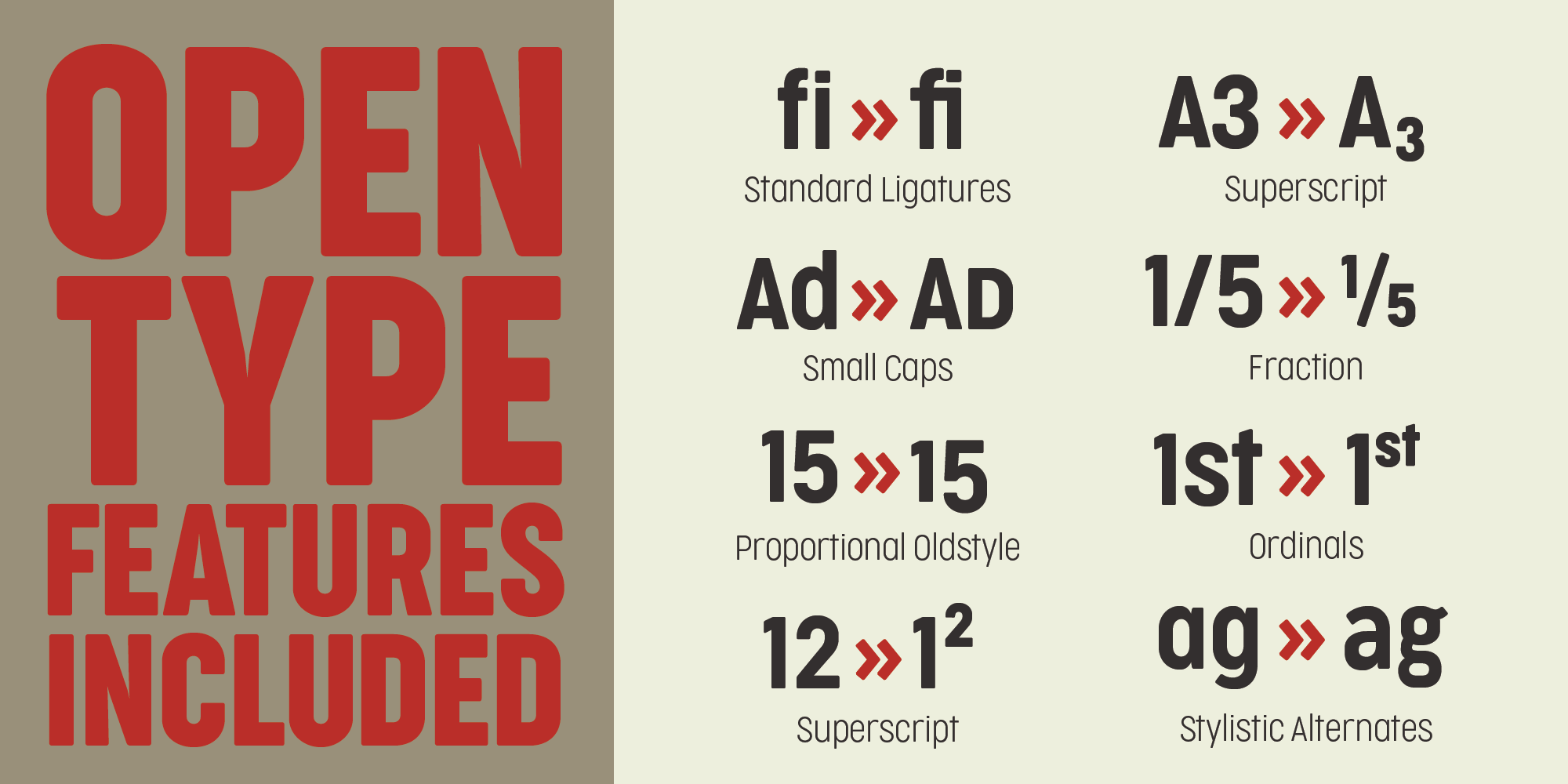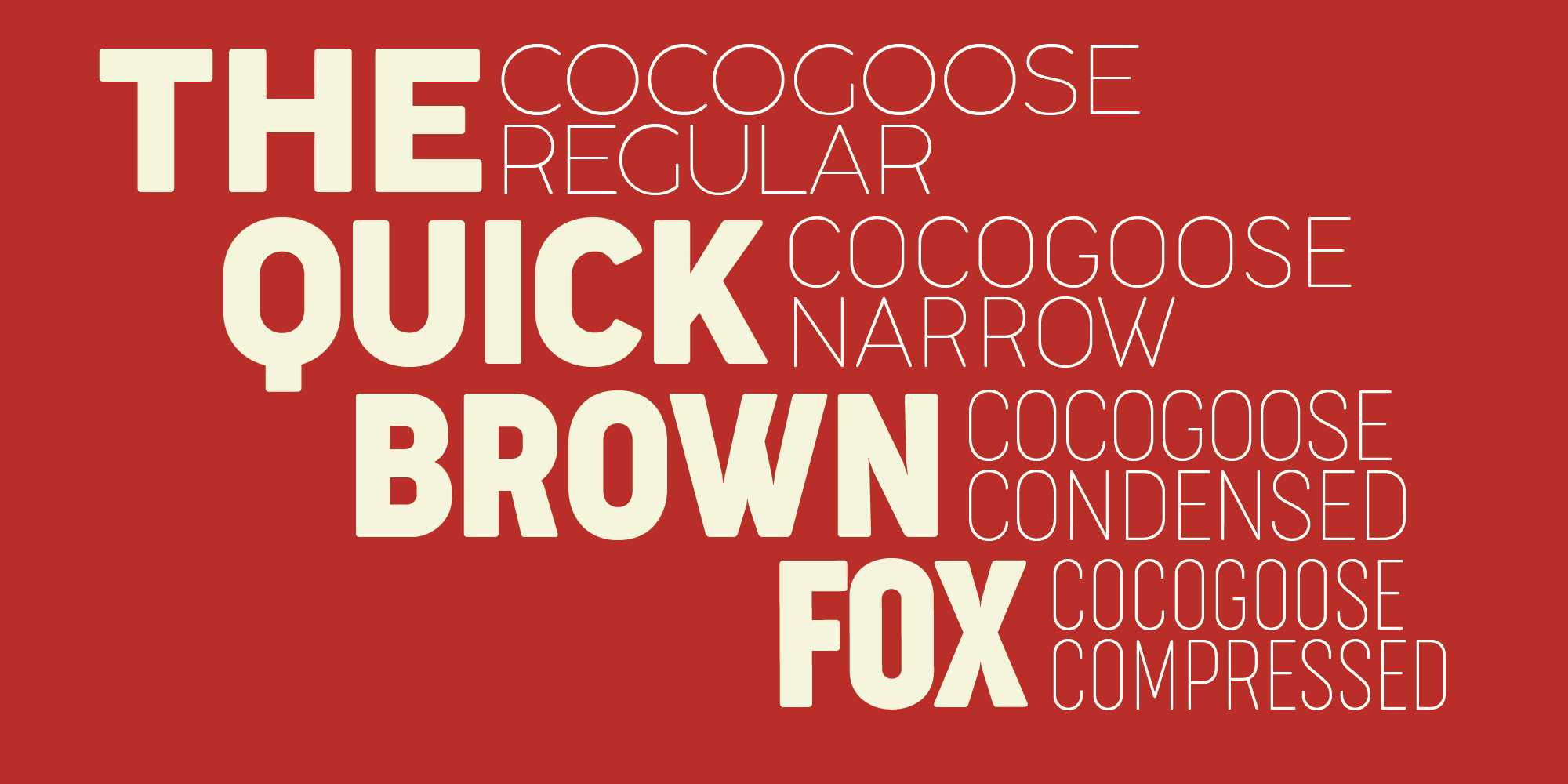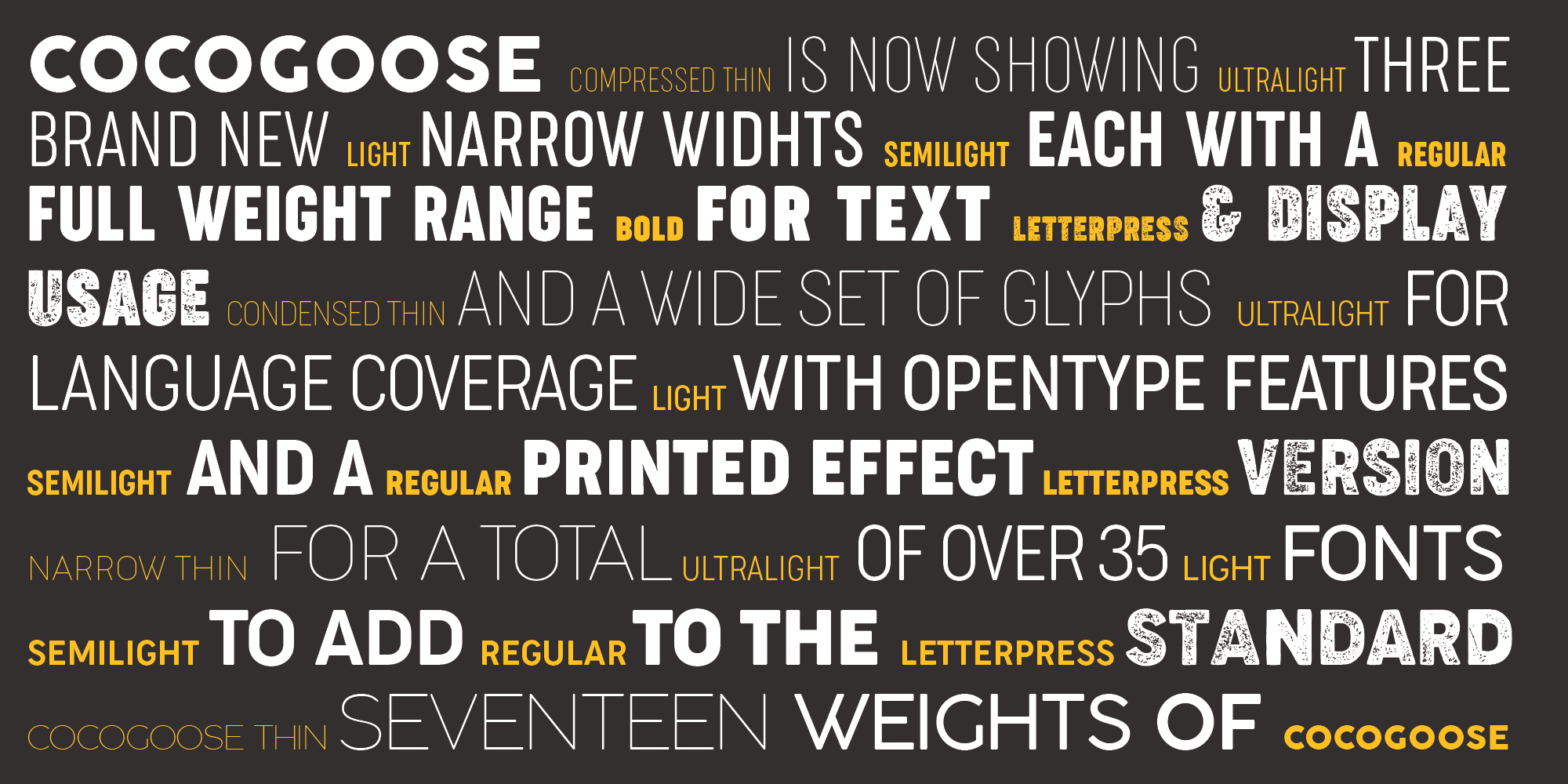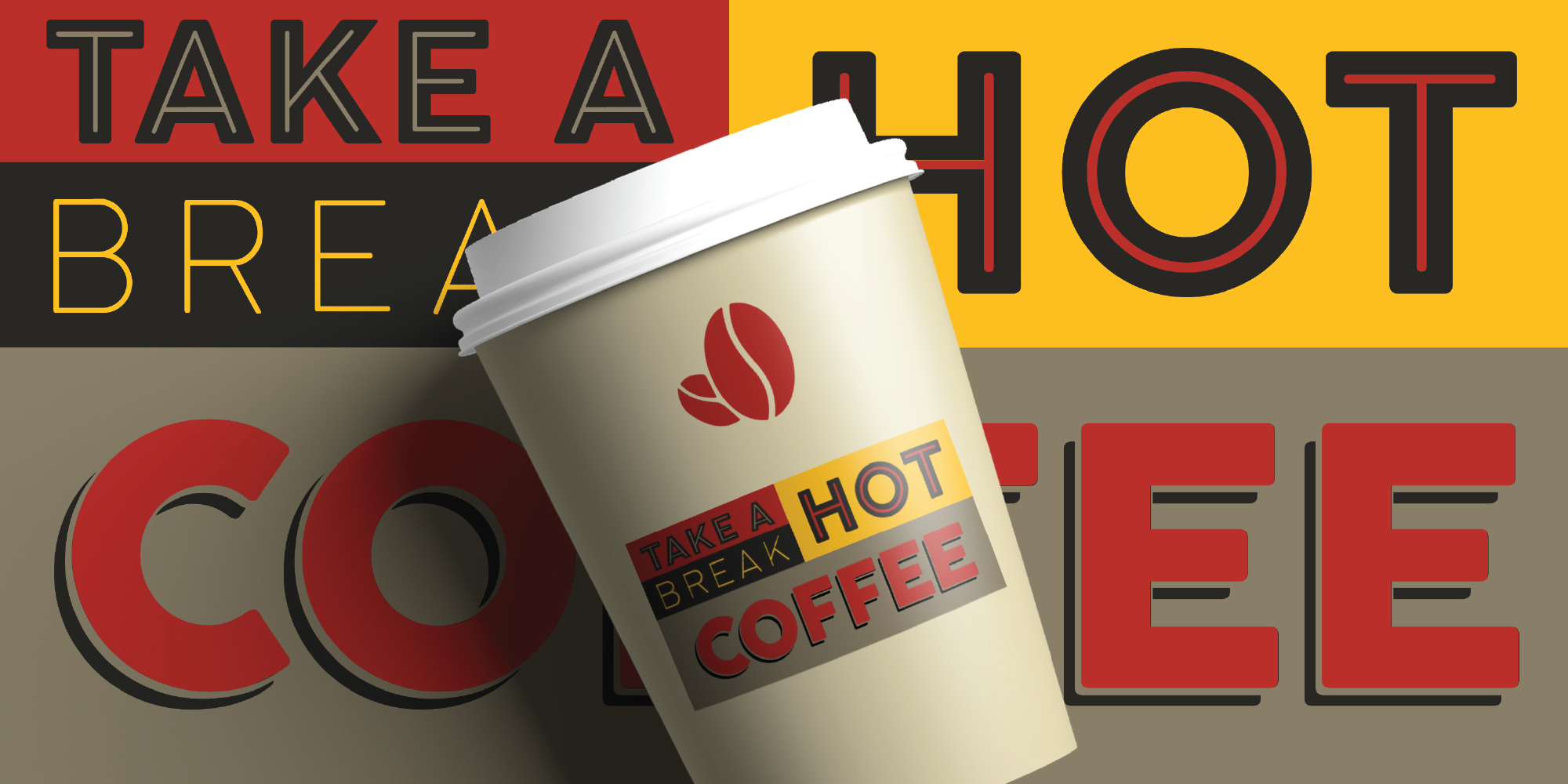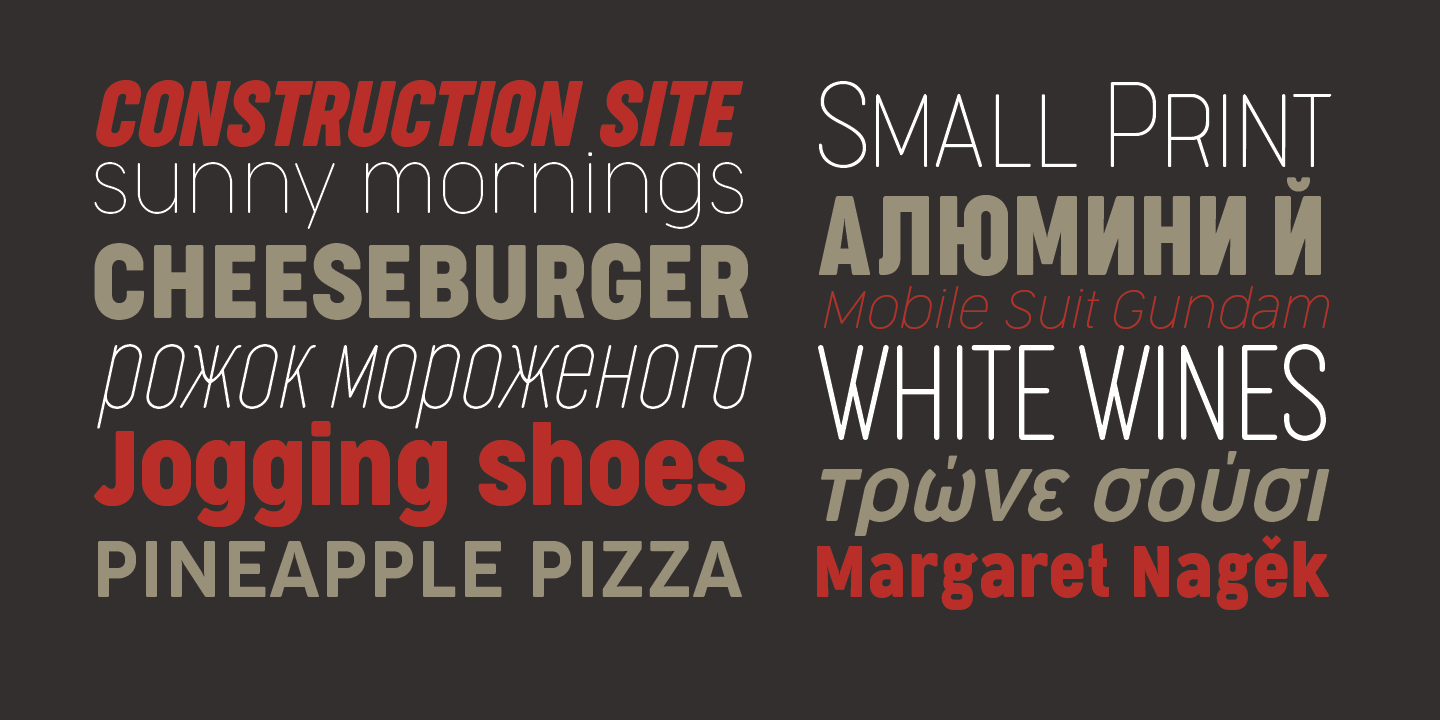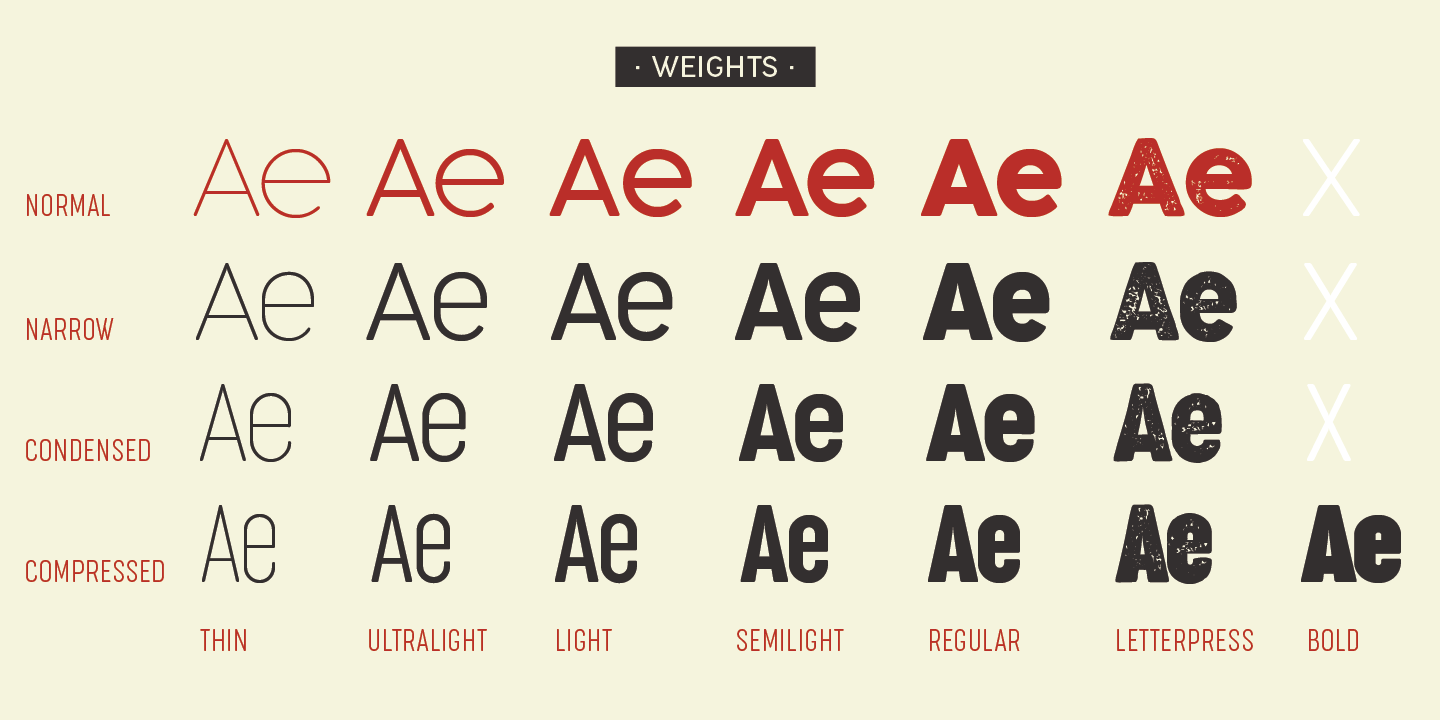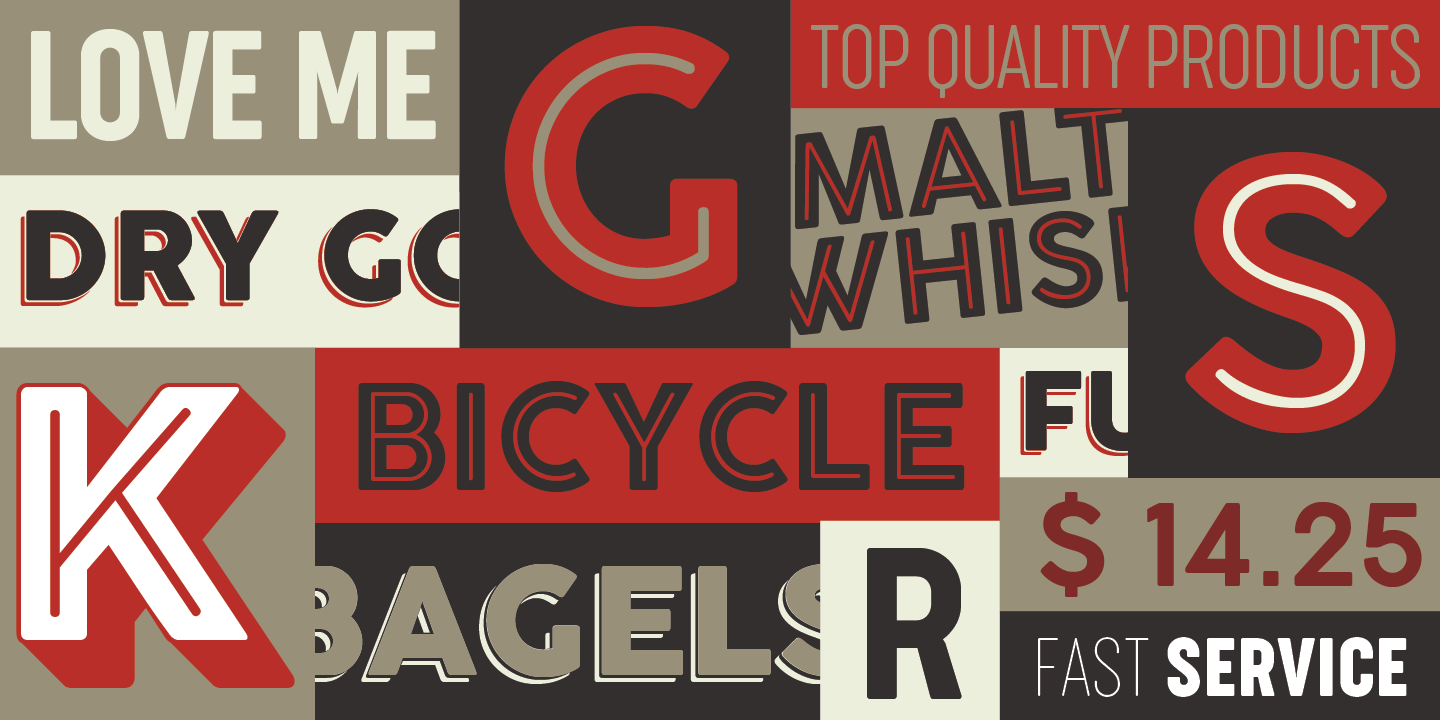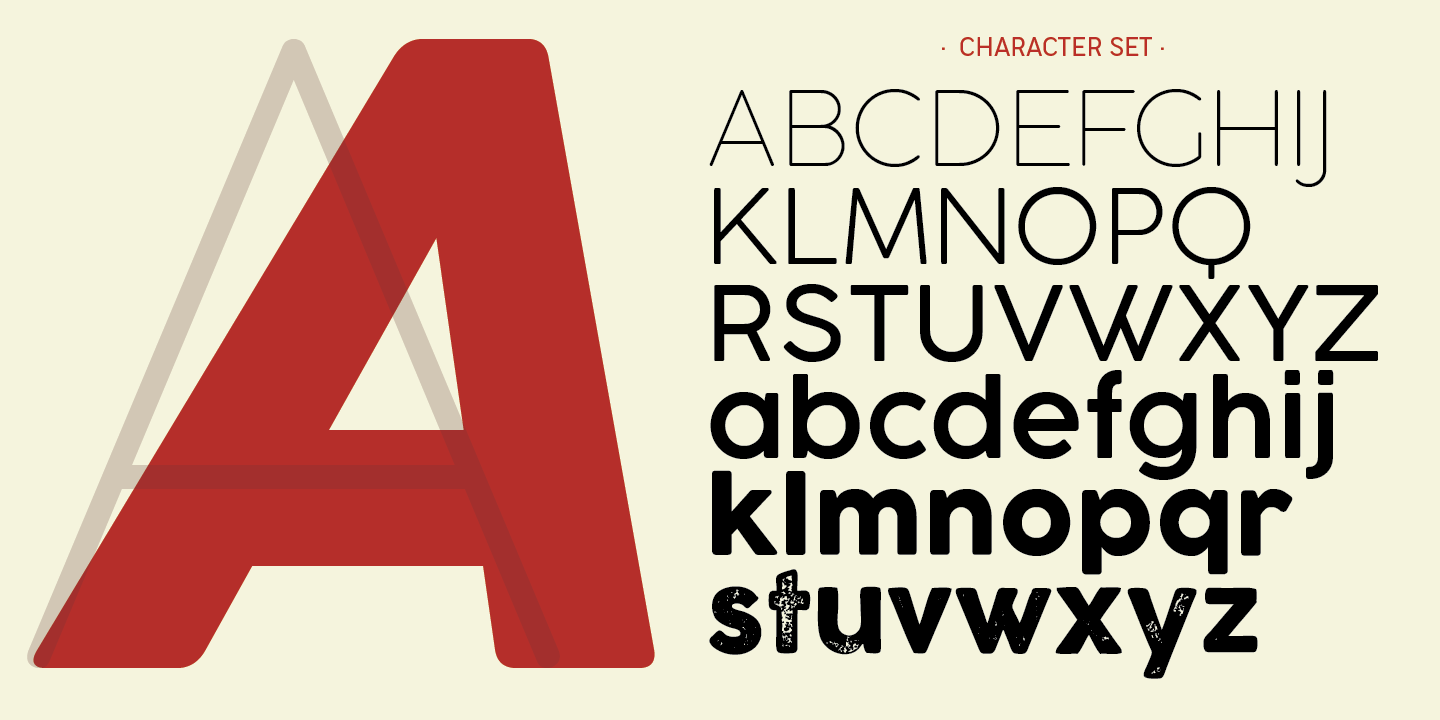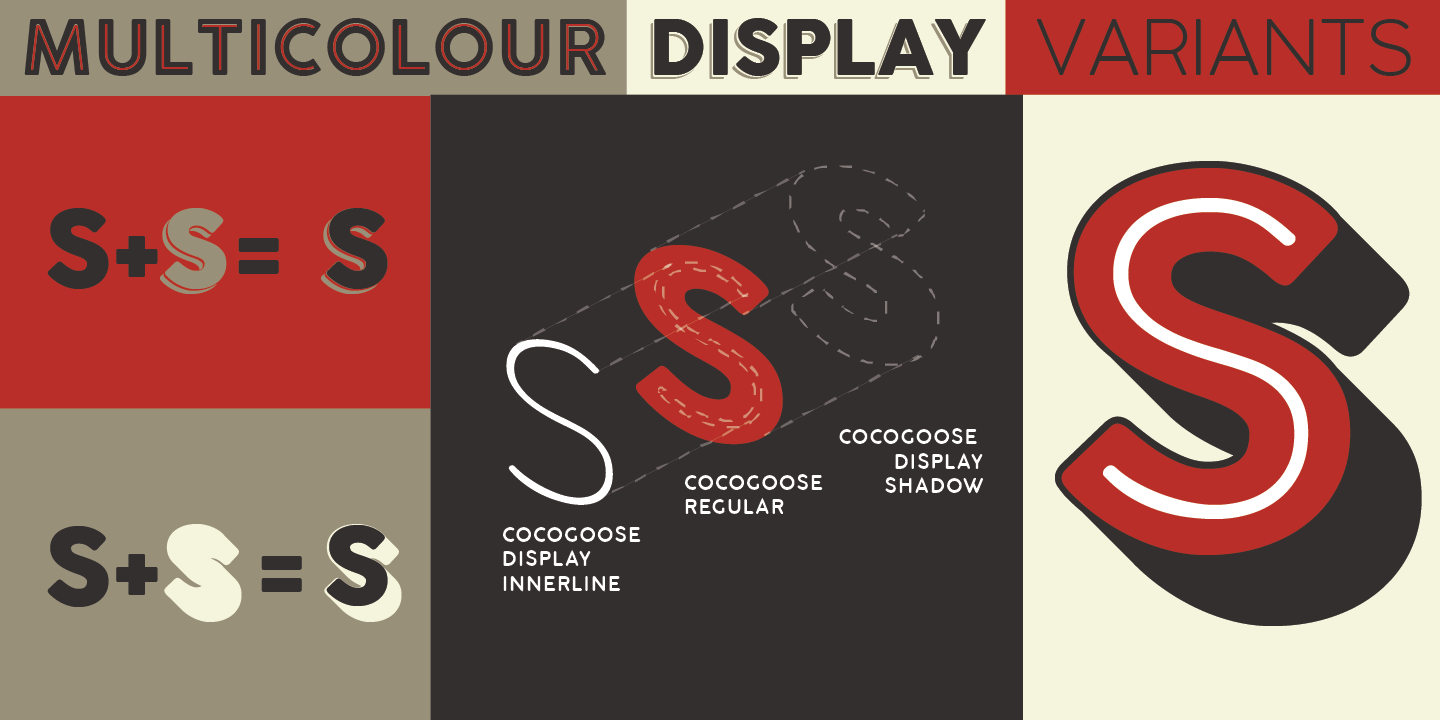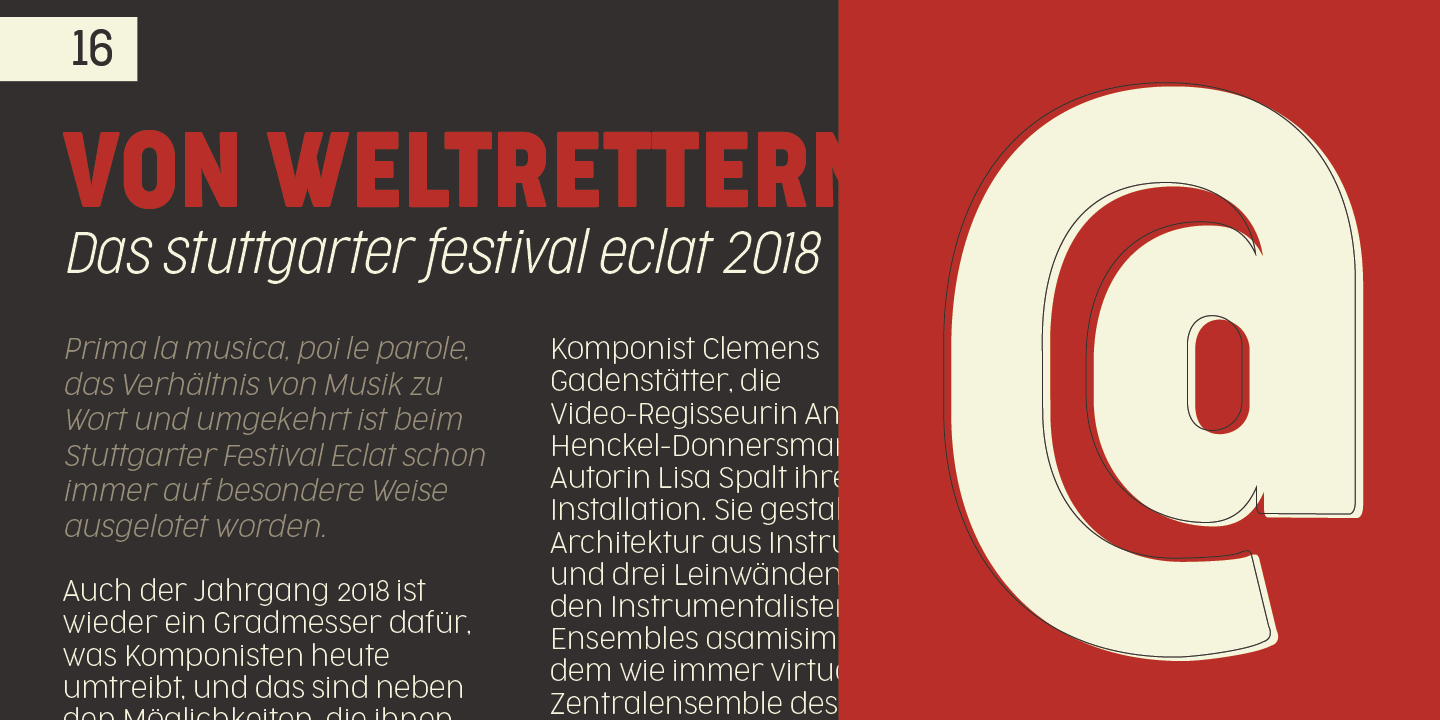
Designed by Cosimo Lorenzo Pancini part of Coco Collection set Version 3.0 / released in 2014
Cocogoose is a geometric sans serif typeface designed with straight, monolinear lines and circular or square shapes. Its strong, modernist look has been softened by rounded corners and slight visual corrections that make Cocogoose not only perfect for logos and headings with a vintage feel, but also very readable as a text font, thanks to its generous x-height.
Cocogoose is part of the Coco Gothic family, a collection of twelve typefaces each inspired by the fashion mood of every decade of last century, named in homage to fashion beloved icon Coco Chanel. Its strong character makes it ideal for display uses.
Cocogoose Standard is Coco Gothic for the 1940's. It features a larger x-height than Coco Gothic, it has square punctation and it comes with five weights, from regular to thin, as well as featuring three display variants: letterpress, inline and outlined.
The original Cocogoose has been completely redesigned in 2016 with a pro version that includes small capitalsold style numeralsfull cyrillic and greek character setbetter screen performance, and a set of four overlapping decorative display versions (Block Shadow, Block Innerline, Block Border, Block Gradient).
Furthermore, Cocogoose has been complemented with 3 new widths: condensed, compressed and narrow, each in multiple weights with italics, and sporting the beloved letterpress version, bringing the family to a total of 52 weights.
Features
• fl fi
Standard Ligatures
• (HO!)
Case-Sensitive Forms
• Wagek
Stylistic Alternates
• Abago
Small Capitals
• 12/23
Fractions
• 1a 3th
Ordinals
• 12360
Lining Figures
• 12360
Oldstyle Figures